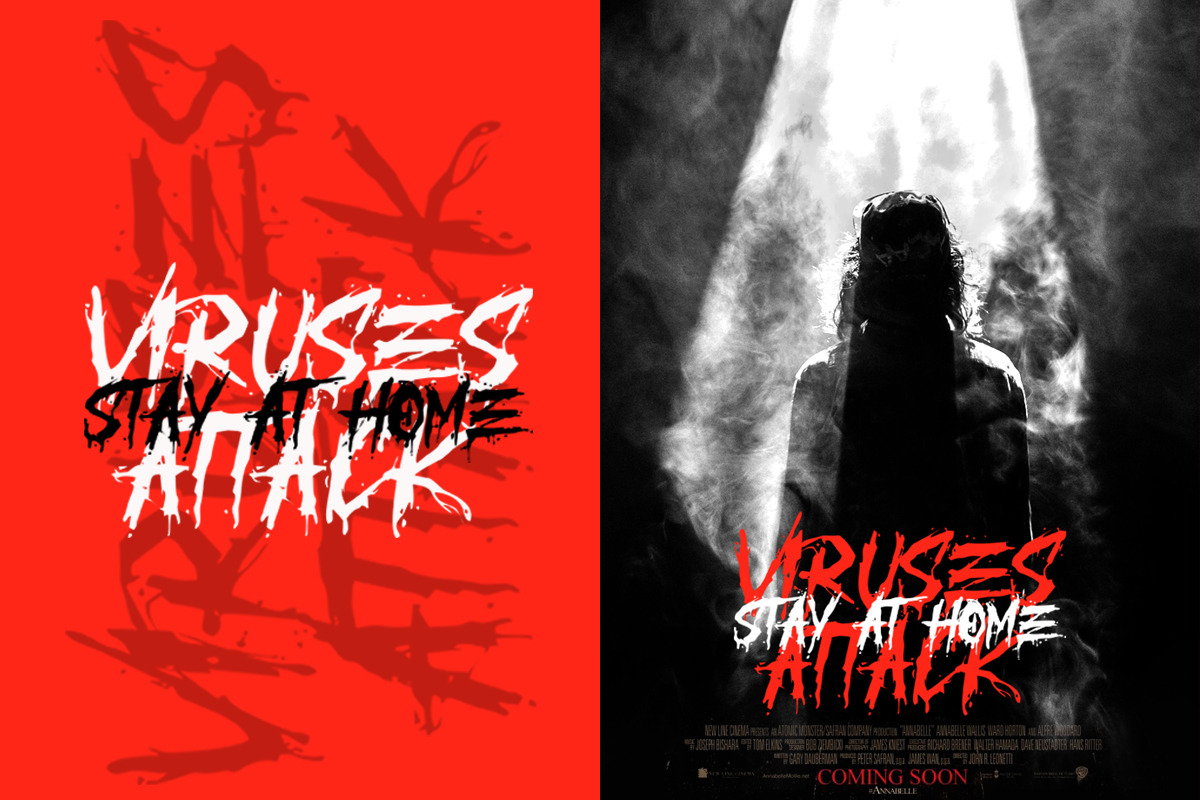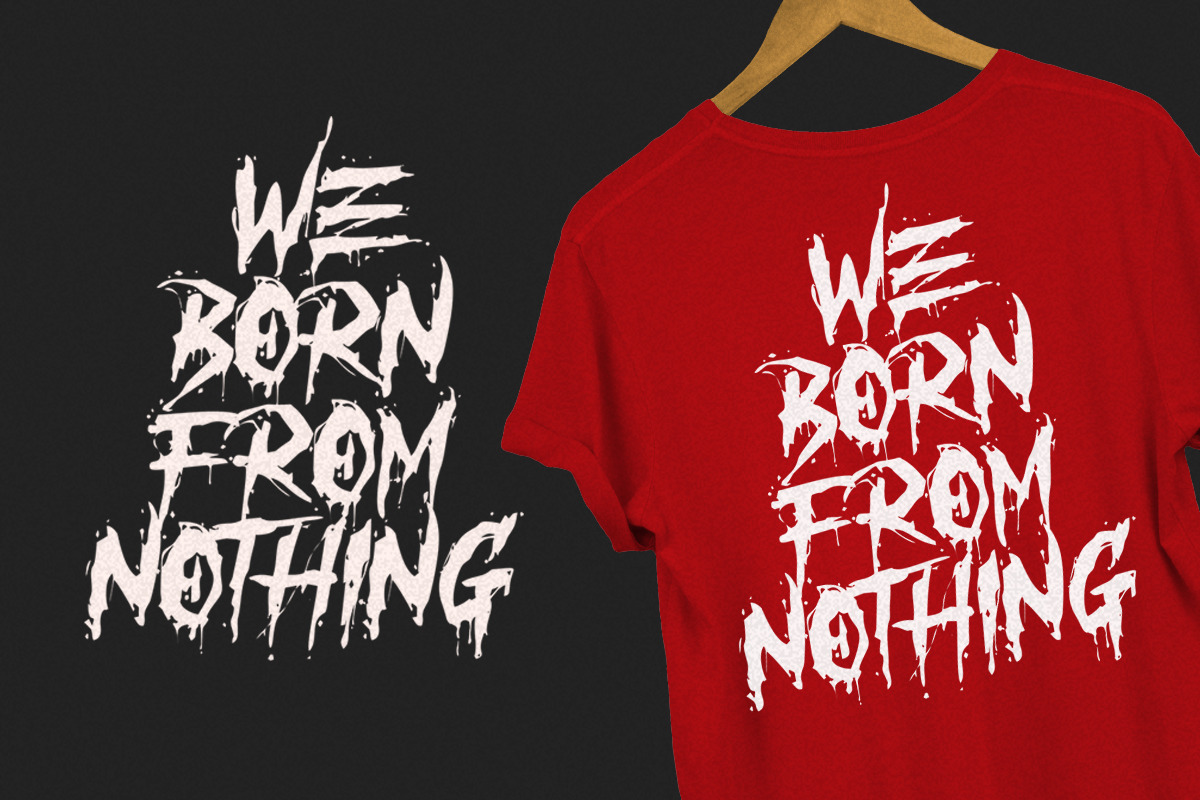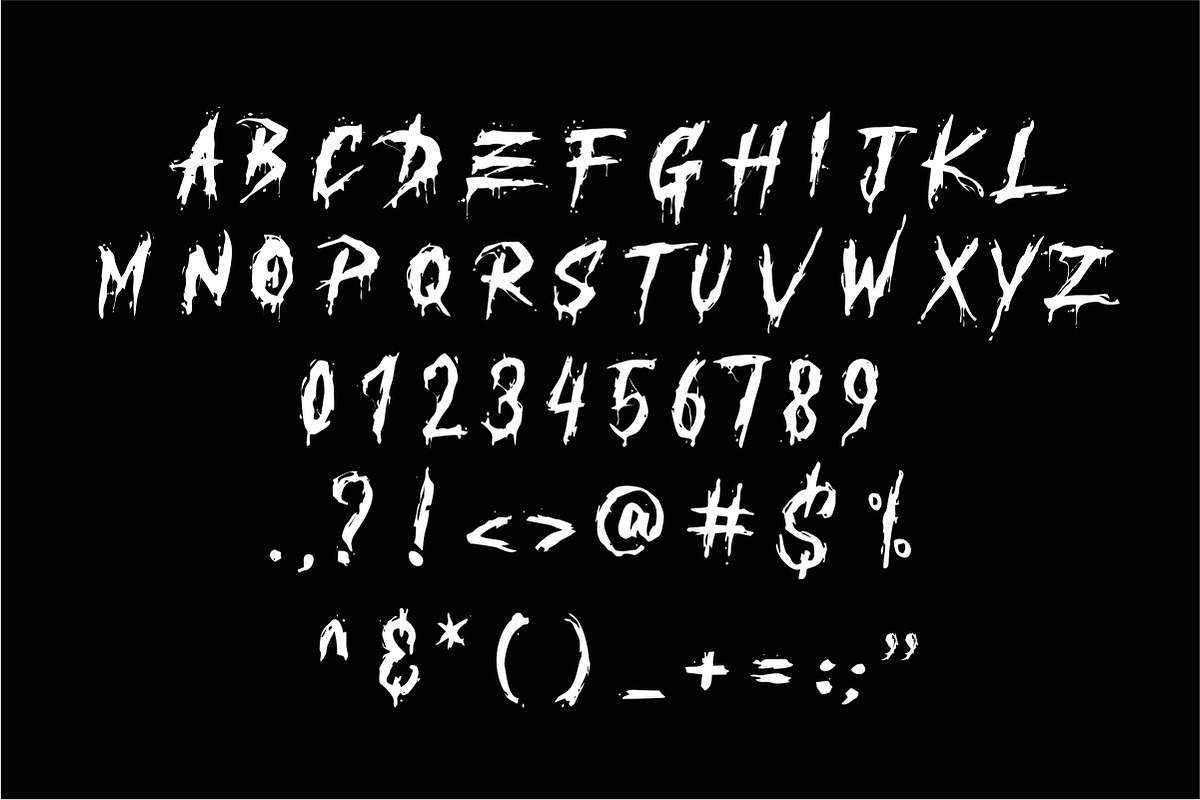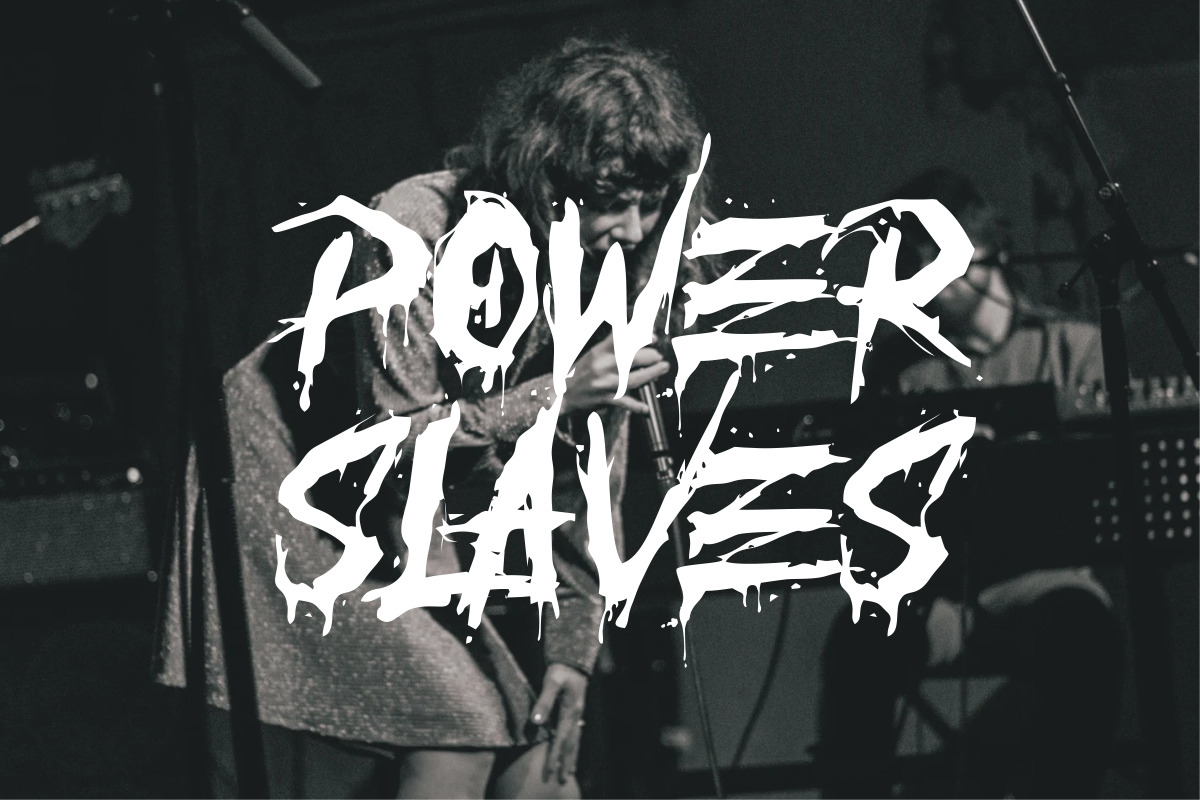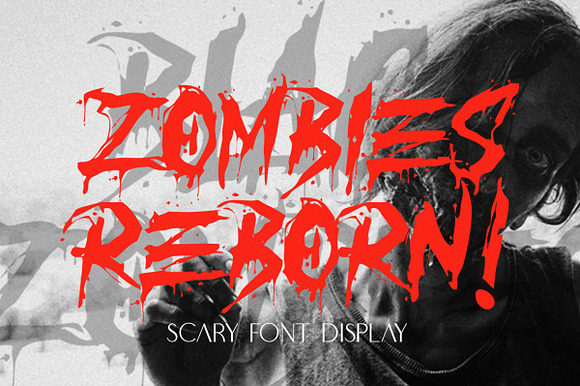
REBORN ZOMBIES FONT
INTRODUCING REBORN ZOMBIES scary font display is a impresive style, REBORN ZOMBIES font bursting with horor soul, REBORN ZOMBIES is ideal for title horor movie, apparel,T-shirt,Hoodie, quotes, product packaging, or anything do you want What's Included:
- REBORN ZOMBIES - The standard version all caps of the font.
Why REBORN ZOMBIES FONT is worth a look
REBORN ZOMBIES FONT by typeline studio fits naturally into Branding, posters, packaging, typography.